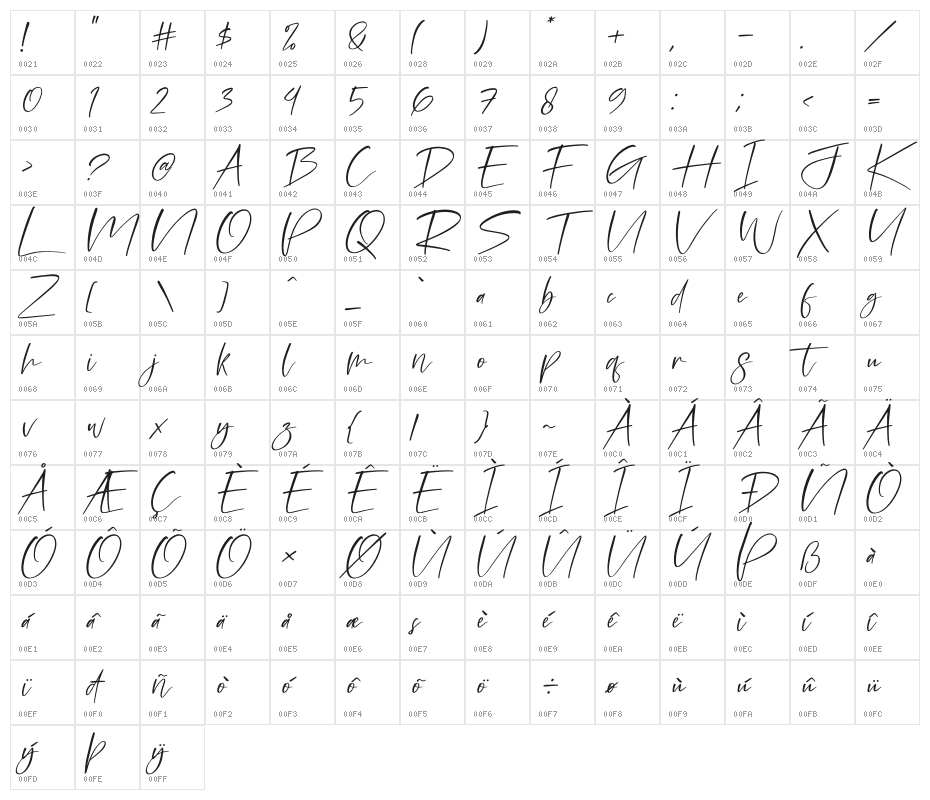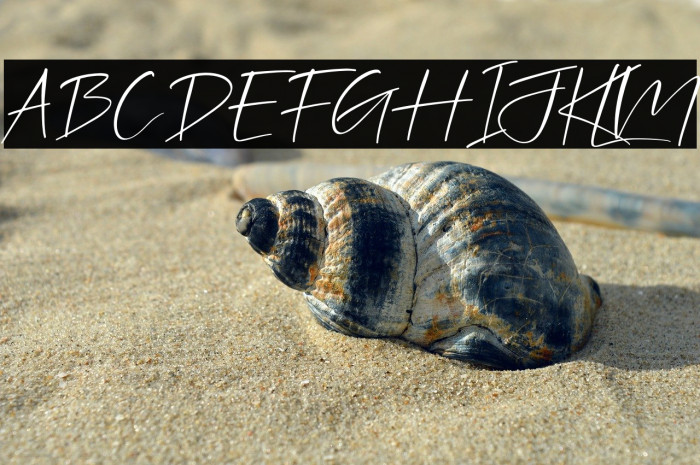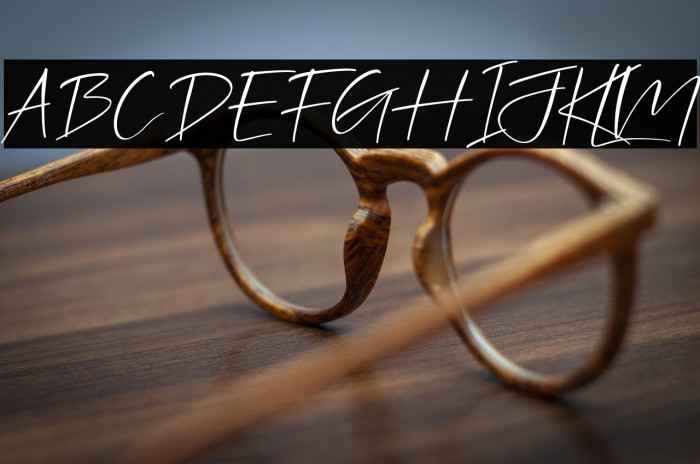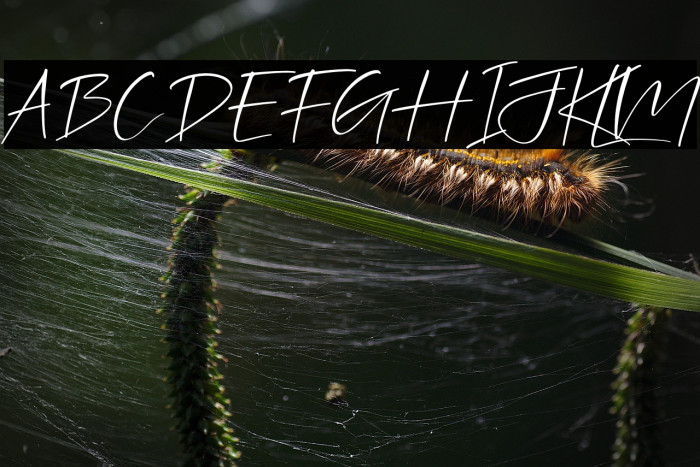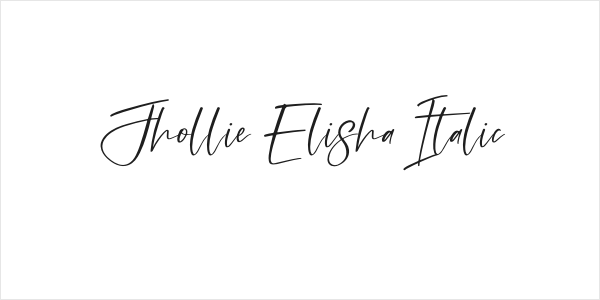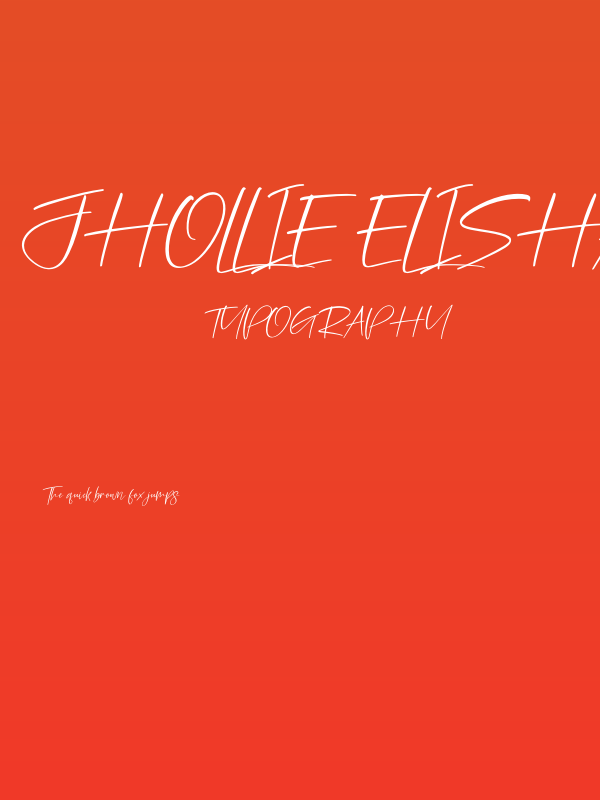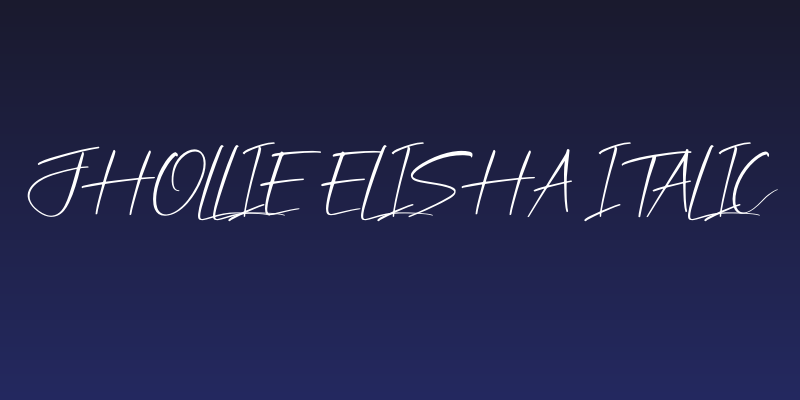
Jhollie Elisha Italic Font
Jhollie Elisha Italic Description
This font exhibits a dynamic and flowing script style, characterized by its elegant and cursive letterforms. The strokes are smooth and connected, giving it a handwritten appearance. The uppercase letters are slightly more angular, while the lowercase letters maintain a consistent fluidity, enhancing the overall aesthetic. The numerals and special characters are designed to match the script's graceful and artistic nature. This font's italic slant adds to its expressive and personal touch, making it suitable for creative and decorative applications.
| Proposed Projects | Ideal for wedding invitations, greeting cards, personal branding, and artistic projects that require a touch of elegance and personality. |